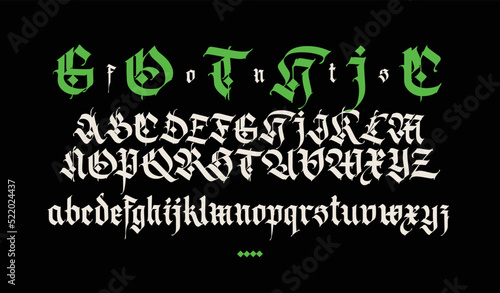
Gothic. Vector. Uppercase and lowercase white letters on a black background. Beautiful and stylish calligraphy. Elegant European typeface for tattoo and design. Medieval Germanic modern style.